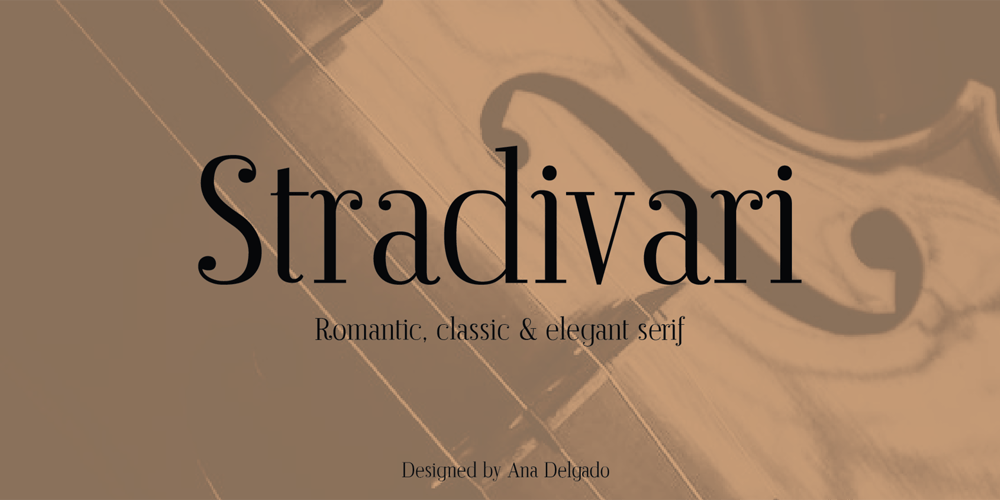
Stradivari
Stradivari font
Stradivari Font Family was designed by Ana Delgado and published by Ana Delgado.. Stradivari contains 3 styles and family package options. Stradivari is a romantic, classic and elegant serif. It was created based on the decorative forms of the Stradivarius “General Dupont” violin. During the Baroque era, this type of shape with a gouty ending was common. It can be found in many areas like architecture, sculpture, and even in the design of contemporary lyrics. This typeface can be applied to editorial design, branding, product packaging, magazine headers, or simply as a text overlay to any background image. It is advisable to use this typeface in display proportions (+24pt).It supports multilingual texts, such as English, Italian, Norwegian, Swedish, German, French, Danish, and Portuguese.